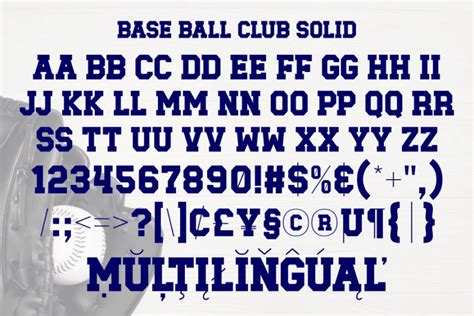
Hey font fans! Are you looking to download the Baseball Club Solid font ? You’ve come to the right place! This font is a total home run for anyone wanting a classic, sporty feel. Whether you’re designing team logos, creating sports-themed graphics, or just want a font with some serious character, Baseball Club Solid is a fantastic choice. Let’s dive into how you can get your hands on this awesome font and what makes it so special. We will cover where to find it, how to install it, and even some cool ways you can use it. Get ready to step up to the plate and knock your design projects out of the park!
What Makes Baseball Club Solid Font Special?
Alright, let’s talk about what makes the Baseball Club Solid font so darn cool. First off, it’s got that undeniable retro vibe. Think classic baseball jerseys, old-school stadium signage, and the kind of typography you’d see on vintage sports equipment. The design is clean, bold, and easy to read, making it perfect for a variety of uses. One of the best things about this font is its versatility. You can use it for headlines, body text (though it’s best for shorter blocks), logos, and even social media graphics. It’s a font that really stands out. The solid style gives it a strong presence, ensuring your message gets noticed. When you download the Baseball Club Solid font , you are not just getting a font; you’re getting a whole aesthetic that’s perfect for projects that need a touch of athleticism and nostalgia. This font brings a feeling of action and excitement, making your designs more dynamic. The solid design ensures the font is visible. For example, if you are making posters, this is something you want. You could also use this font for a wide variety of things such as t-shirts, caps, and shoes. It’s like having a secret weapon in your design arsenal! With its timeless appeal and sporty flair, it can give a fresh look to any project.
Creative Ways to Use the Baseball Club Solid Font
Alright, you’ve got the font installed. Now, what can you do with the Baseball Club Solid font ? The possibilities are endless, but here are a few ideas to get those creative juices flowing. Think about logos. This font is a perfect fit for sports teams, leagues, or any brand looking for a sporty identity. Create a logo for your local softball team, a retro-style logo for a vintage clothing brand, or even a modern twist on a classic design. Make sure to play with different color combinations and layouts to see what works best. The font is very versatile, so you can do many different things with it. It looks great in both single-color designs and multi-color layouts. It is also perfect for posters. Design posters for sports events, community gatherings, or even promotional materials for a sports bar. Use bold colors and striking layouts to make your posters pop. If you are doing marketing, this font will stand out and show the importance of your marketing campaign. You can make an immediate impact on your audience. With a touch of creativity, this font can also be used for merchandise. This includes t-shirts, hats, and other merchandise. Create custom apparel for your team, your brand, or even just for fun. It is very simple to do and can be very effective in grabbing attention. This is a very easy way to increase your brand awareness. And of course, you can create social media graphics. Design eye-catching graphics for Instagram, Facebook, and other social media platforms. Use the font for headlines, quotes, and other text elements to make your posts stand out. With a little creativity and a touch of the Baseball Club Solid font, you can make your social media presence more engaging and memorable.
Let’s not forget about web design. Incorporate this font into your website’s headings, navigation, or other key text elements to give it a sporty, retro feel. Use it for headings, subheadings, and calls to action to create a cohesive design. In addition to these ideas, remember to experiment. Try different sizes, colors, and layouts to see what works best for your projects. Don’t be afraid to mix and match the font with other design elements. You can pair it with images, illustrations, and other fonts to create a unique and eye-catching look. By experimenting with different layouts and designs, you can create something unique.
Tips for Using the Baseball Club Solid Font Effectively
To make sure you get the most out of the Baseball Club Solid font , here are a few tips and tricks to keep in mind. First of all, think about readability. While this font is bold and eye-catching, it’s not always ideal for large blocks of text. Stick to using it for headlines, titles, or short phrases where clarity is key. In addition to readability, consider the context. Make sure the font aligns with your overall design theme and message. If you are going for a classic, sporty look, then this font is perfect. If you are trying to promote something completely different, then it is not the right choice. Use the font to enhance your message. Play with spacing and kerning. Experiment with the spacing between letters (kerning) and lines (leading) to find the perfect balance. This can significantly improve the font’s appearance and readability. If you want to make the font even more readable, you should increase the space between the letters. This will make them more clear. Try different sizes and weights. Explore the various sizes and weights available to see how they affect the look and feel of your design. Varying the size and weight can add visual interest. Try using the font in a variety of different ways. Consider the color palette. Choose colors that complement the font and the overall design. Bold colors like red, blue, and black work well with this font. You can also experiment with different gradients and textures to create a unique look. The color can change everything, so it is important to choose wisely.